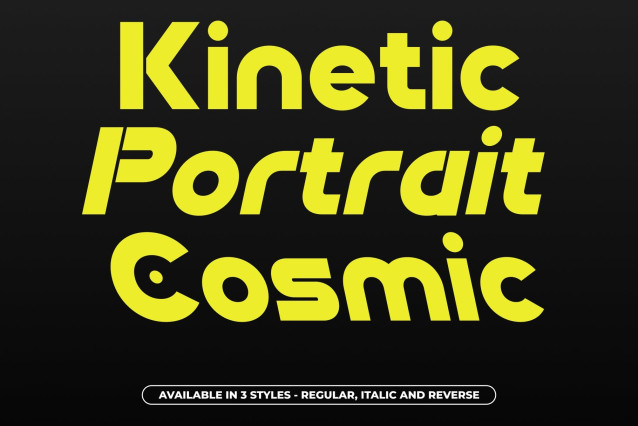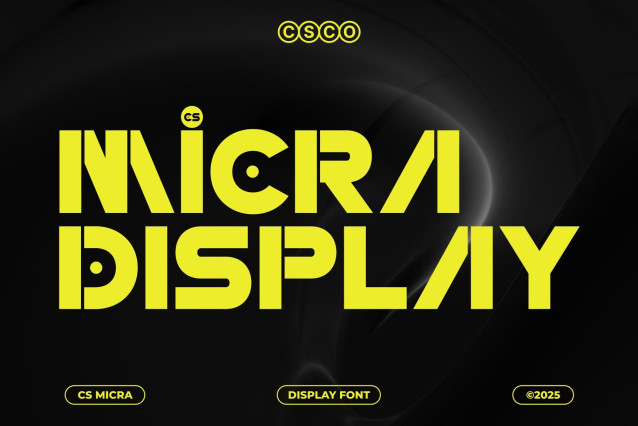
CS Micra Font
CS Micra Font – This is a bold futuristic display font designed to project modern energy and cutting-edge style. Built on a strong techno foundation, this font combines industrial influence with clean geometric construction, resulting in letterforms that feel sharp, confident, and forward-looking. Its striking appearance immediately draws attention, making CS Micra an ideal choice for designs that demand innovation, clarity, and visual power.
Geometric Structures with Industrial Strength
The geometric character of this font gives it a structured and mechanical feel, reinforcing its industrial identity. Strong lines, precise angles, and balanced proportions create a sense of order and technical precision. Each character is carefully designed to feel solid and intentional, delivering a bold presence that works exceptionally well in high-impact display settings.
Experimental Style for Bold Expression
This font embraces an experimental design approach that pushes beyond traditional typography. Its combination of unconventional shapes and modern construction creates a dynamic visual rhythm that feels progressive and innovative. This experimental edge allows designers to explore new visual directions, making this font perfect for creative projects that aim to stand out and challenge expectations.
Perfect for Branding, Logos, and Posters
Designed for impactful applications, this font excels in branding, logo design, posters, and promotional materials. Its techno-industrial aesthetic and modern energy make it suitable for technology brands, futuristic concepts, creative studios, and urban visuals.